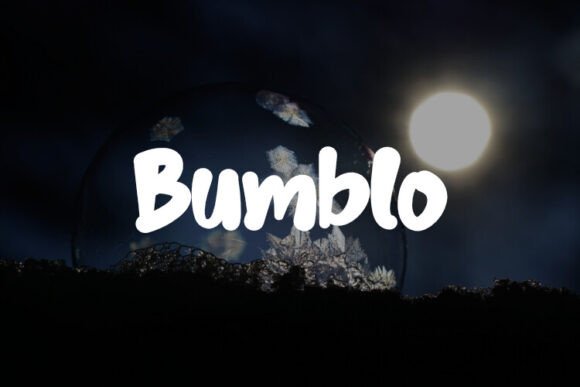
Bumblo Font: The Ultimate Design Companion for Fashion and Merchandise
The world of design is vast and diverse, with numerous fonts available to cater to different tastes and preferences. Among these, the Bumblo font has gained significant attention for its versatility and aesthetic appeal, particularly in the realm of fashion and merchandise design. In this article, we will explore the Bumblo font, its features, and how it can be a valuable asset for designers looking to create stunning clothes, t-shirts, and other products.
What is Bumblo Font?
Bumblo is a thoughtfully crafted font designed specifically for creating visually appealing text that stands out on various products, especially in the fashion sector. Its unique style and flexibility make it an excellent choice for designers aiming to leave a mark with their work. Whether you’re designing for t-shirts, hoodies, or any other apparel, Bumblo provides the perfect blend of modernity and readability.
Key Features of Bumblo Font
- Versatility: Bumblo font is incredibly versatile, making it suitable for a wide range of design projects. From casual wear to more formal apparel, this font adapts seamlessly to different themes and styles.
Applications of Bumblo Font in Design
Bumblo’s adaptability makes it a go-to font for various design applications, particularly in the fashion industry. Here are some of the key areas where Bumblo excels:
- T-Shirt Design: T-shirts are a staple in fashion, and Bumblo helps designers create eye-catching text that pops on the fabric. Its clear and readable style ensures that your message or logo stands out.
- Clothing and Apparel: Beyond t-shirts, Bumblo is perfect for designing other clothing items such as hoodies, jackets, and hats. Its stylish appearance elevates the overall look of the apparel.
- Merchandise: For businesses looking to create branded merchandise, Bumblo offers a professional and modern aesthetic that aligns well with various product types, from mugs to tote bags.
- Custom Designs: If you’re looking to create custom designs for personal use or client projects, Bumblo provides the flexibility to experiment with different styles and effects, ensuring a unique final product.
Tips for Using Bumblo Font Effectively
To get the most out of Bumblo, consider the following tips:
- Experiment with Sizes: Bumblo looks great in various sizes, but it’s essential to ensure that the text is legible, especially on smaller products.
- Play with Colors: The font’s style lends itself well to different colors and effects. Experiment with contrasting colors to make the text pop.
- Combine with Graphics: Bumblo works well when paired with graphics or logos. Ensure that the text and visuals complement each other for a cohesive design.
- Test on Different Products: Before finalizing your design, test it on various products to see how the font appears in different contexts.
The Benefits of Using Bumblo Font
Choosing Bumblo for your design projects comes with several advantages:
- Unique Style: Bumblo offers a distinctive style that sets it apart from more generic fonts. Its unique appearance can help your designs stand out in a crowded market.
- Time-Saving: With Bumblo, you can create professional-looking designs quickly, saving time and effort in the design process.
- Cost-Effective: Investing in high-quality fonts like Bumblo can be cost-effective in the long run, as it reduces the need for multiple font purchases and allows for more efficient design workflows.
- Cross-Platform Compatibility: The OTF format ensures that Bumblo works across different devices and software, providing flexibility in your design work.
Bumblo font is a valuable tool for designers looking to create stylish and professional text for fashion and merchandise. Its versatility, compatibility, and unique style make it an excellent choice for a wide range of design projects. By incorporating Bumblo into your workflow, you can enhance your designs and create visually appealing products that stand out. Whether you’re a seasoned designer or just starting out, Bumblo is a font worth exploring for its potential to elevate your work.